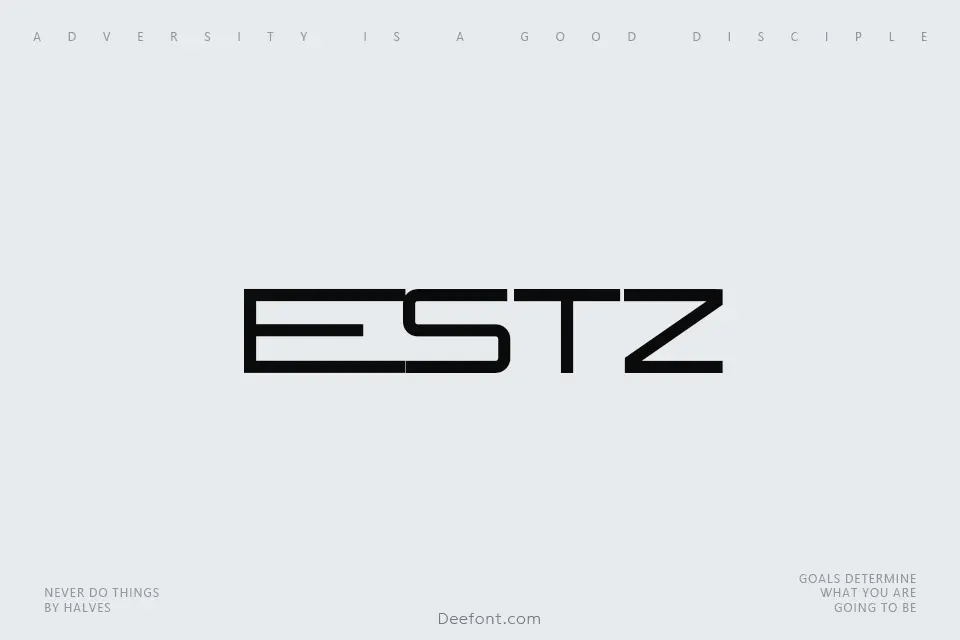
Estz Font
Estz Font is a modern sans-serif typeface characterized by its geometric design and futuristic aesthetic. Featuring clean lines, uniform character widths, and an all-caps format, it exudes a bold, cohesive appearance ideal for headlines, branding, and technology-themed projects. The font’s minimalist yet assertive style makes it suitable for logos, social media content, product packaging, and any design requiring a contemporary or techno vibe. While free for personal use, commercial applications typically require a license. Its versatility spans both digital and print mediums, offering a crisp, professional look that aligns with modern design trends.